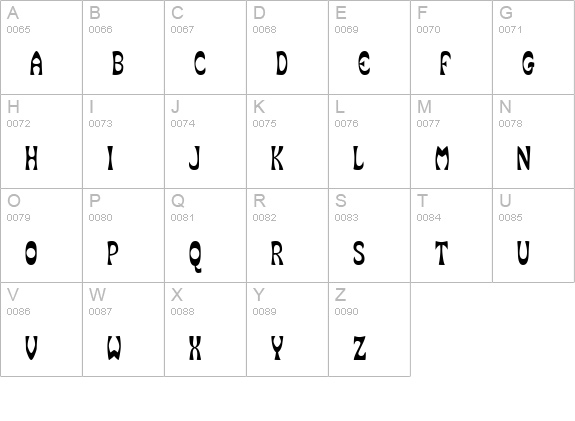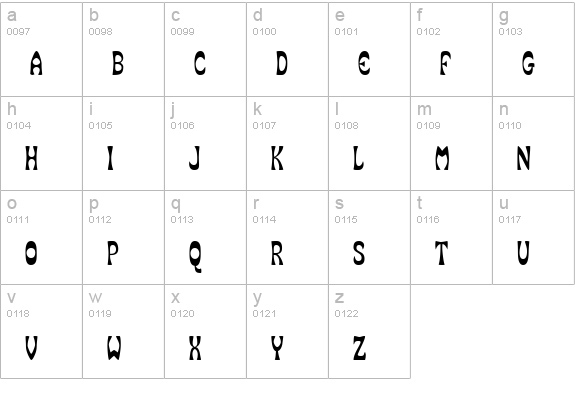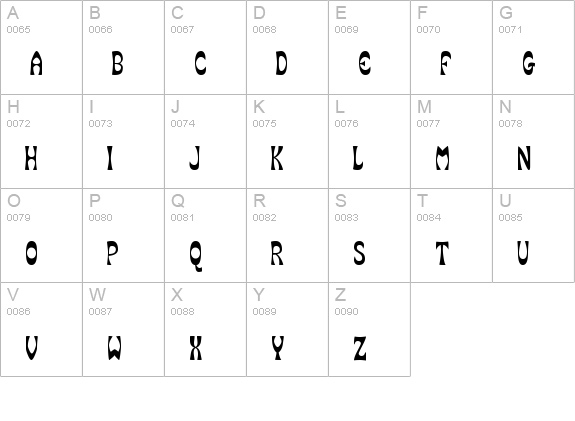
Introducing SmokeHouse font, a captivating and versatile typeface that will add a touch of rustic elegance to any design project. This unique font features a perfect balance between boldness and delicacy, making it suitable for a wide range of applications. With its intricate details and vintage-inspired aesthetic, SmokeHouse font is perfect for creating eye-catching logos, branding materials, packaging designs, and more. Its timeless appeal will effortlessly elevate your designs, giving them a classic yet contemporary feel. One of the best things about SmokeHouse font is that it is available for free download at FontsMarket.com. This means that you can easily access and use this stunning font in your projects without any cost. Whether you're a professional designer or a hobbyist, this accessibility ensures that you can seamlessly incorporate SmokeHouse font into your creative endeavors. Designed with precision and attention to detail, SmokeHouse font offers a wide range of characters, including uppercase and lowercase letters, numerals, punctuation marks, and special symbols. This versatility gives you the freedom to experiment and create unique combinations, resulting in truly one-of-a-kind designs. The handcrafted nature of SmokeHouse font adds an authentic and organic feel to your designs, making them stand out from the crowd. Its subtle imperfections and artistic flair bring a sense of warmth and personality, evoking a nostalgic charm that is sure to resonate with your audience. Whether you're designing for print or digital media, SmokeHouse font delivers exceptional legibility and readability, ensuring that your message is conveyed clearly and effectively. Its clean lines and well-defined shapes guarantee that your text remains crisp and sharp, even at small sizes. In conclusion, SmokeHouse font is a must-have for designers looking to add a touch of elegance and sophistication to their projects. With its timeless appeal, versatility, and the fact that it is freely available to download at FontsMarket.com, this font is truly a valuable asset in any designer's toolkit. Embrace the charm and beauty of SmokeHouse font, and let your creativity soar to new heights.